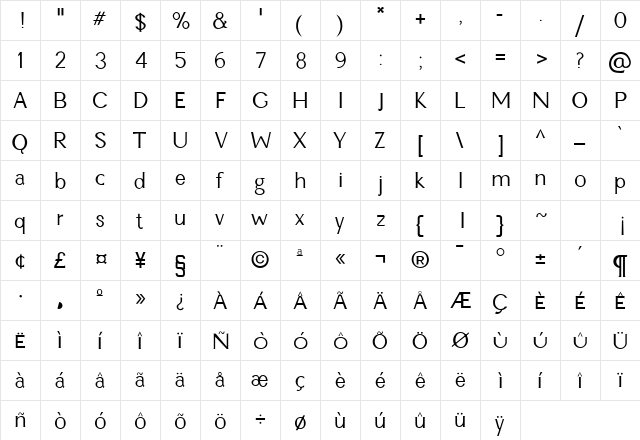
RSKathlita Medium
Design Context for RSKathlita Typeface
RSKathlita offers clean, dependable letterforms without strong stylistic allegiance, making it a practical choice for designers who need flexibility.
Pro Tip: Use RSKathlita in both headline and body roles to test its range before committing to a single application.